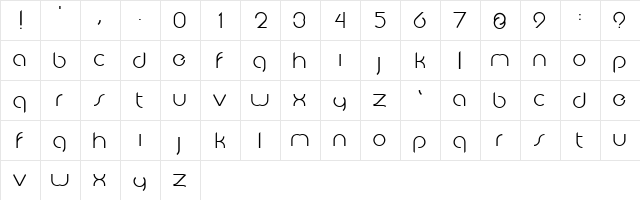
Abode Light
Design Context for Abode Typeface
Abode offers clean, dependable letterforms without strong stylistic allegiance, making it a practical choice for designers who need flexibility. The delicate stroke weight brings airiness and refinement to layouts.
Pro Tip: Use Abode in both headline and body roles to test its range before committing to a single application.